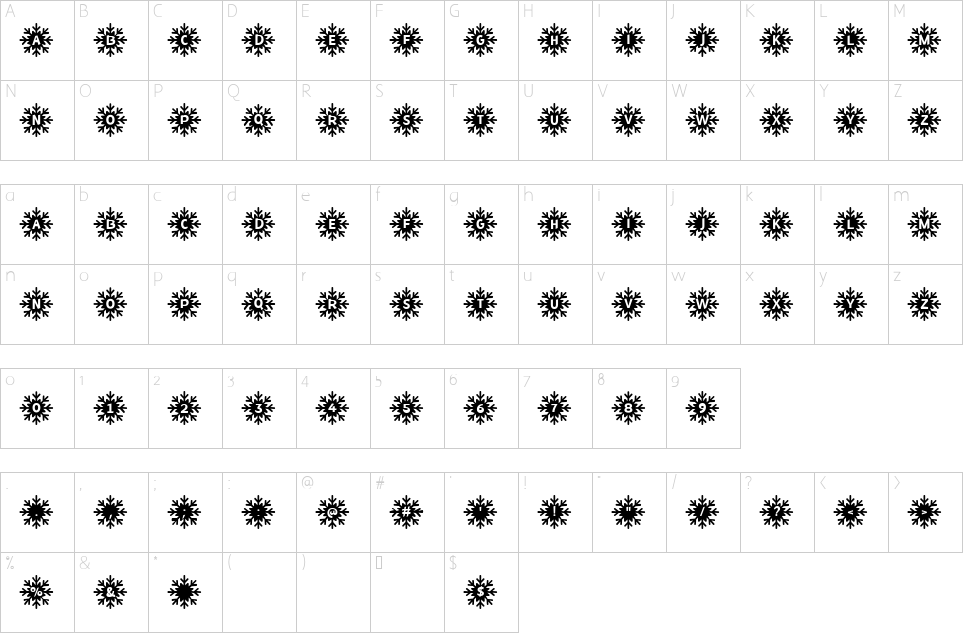
MF Snowflakes Font
Designers Note
MF Snowflakes is a fun, winter-themed typeface that was carefully handcrafted to create lovely, customized designs. This festive font is perfect for creating Christmas gift tags and Holiday greeting cards. You can also create stunning, personalized gifts and products, including coffee mugs, cute monogram stickers, stylish tumblers and so much more! Whether you are a hobby crafter or an Etsy shop owner, this font is ideal for you!